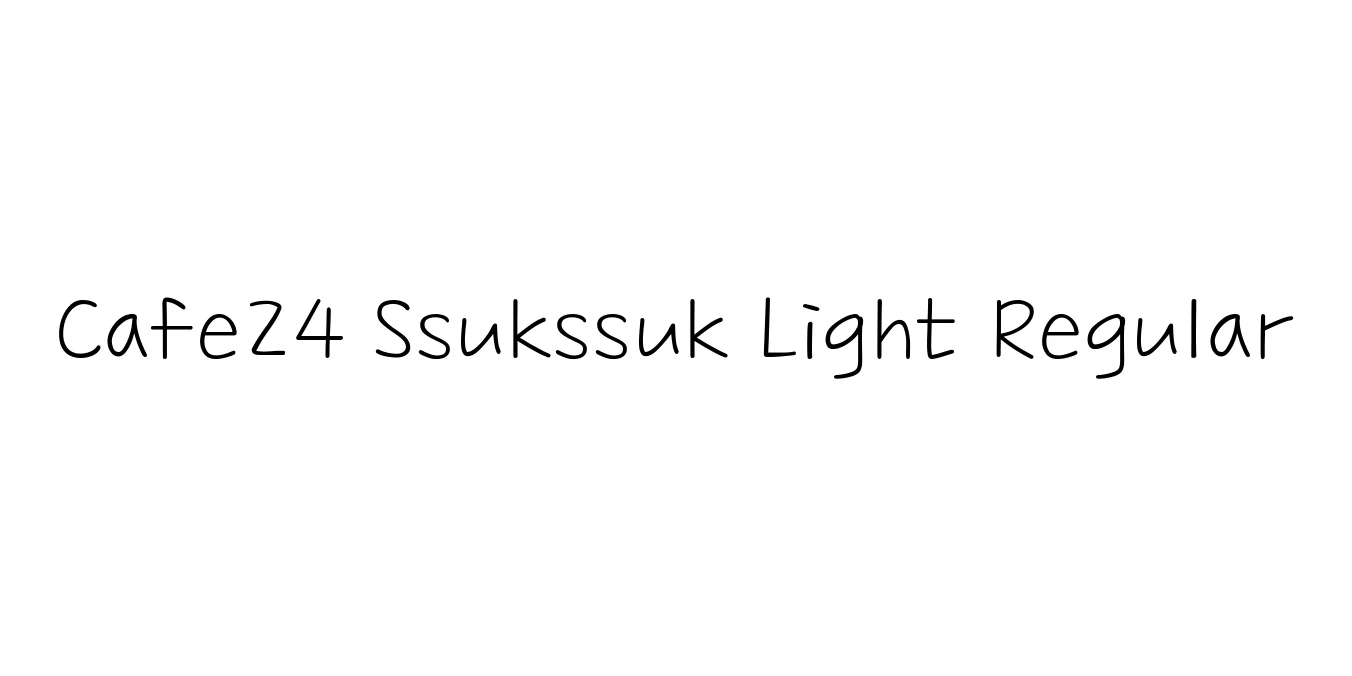
Cafe24 Ssukssuk Light Regular
Cafe24 Ssukssuk Light Regular is a distinctive typeface released by Cafe24, a leading global e-commerce platform based in South Korea. The font was specifically designed to support entrepreneurs and digital creators by providing a high-quality, friendly typographic tool that enhances the visual appeal of online stores and promotional materials. The Light Regular version offers a delicate, refined weight that maintains the playful, hand-drawn essence of the original Ssukssuk family while providing a cleaner, more breathable appearance for modern layouts.
This typeface is defined by its soft, rounded terminals and casual stroke patterns that mimic natural human handwriting. It strikes a perfect balance between informal charm and professional legibility, making it highly effective for brands that want to convey warmth and accessibility. As part of Cafe24's commitment to the creative community, the font is provided under a free license for both personal and commercial use, ensuring it is a versatile asset for web designers and marketers worldwide.
Cafe24 Ssukssuk Light Regular Best Uses
Perfect for product descriptions, banners, and promotional graphics for lifestyle brands.
Ideal for creating engaging Instagram posts, YouTube thumbnails, and digital stickers.
Great for blog headers and informal website interfaces that require a personal touch.
Suitable for greeting cards, invitations, and packaging for handmade or organic products.